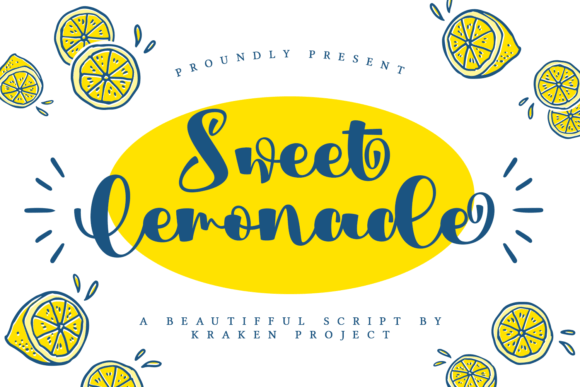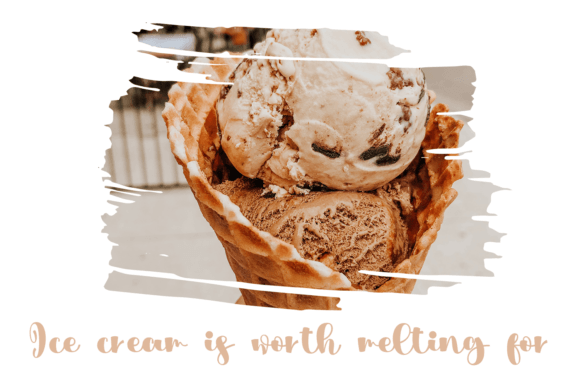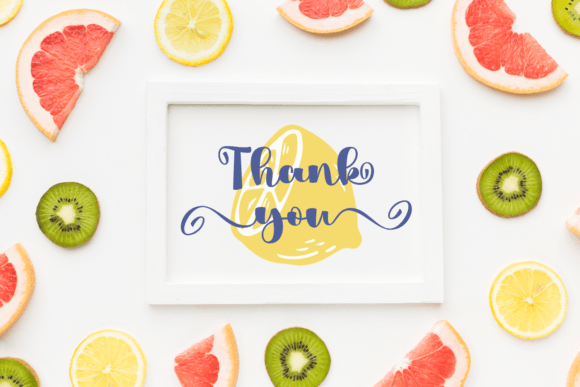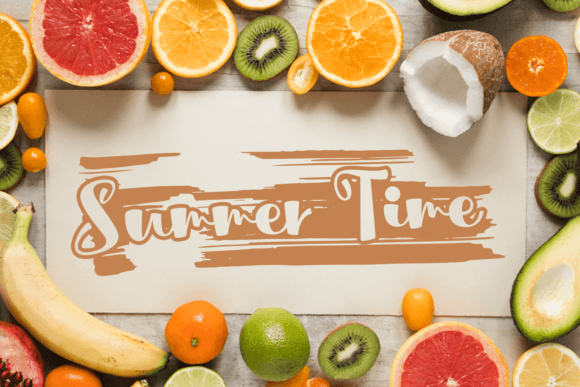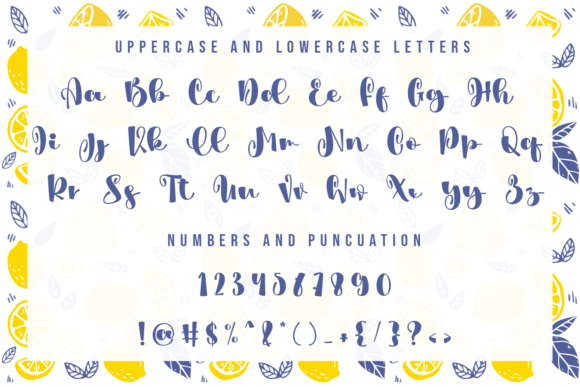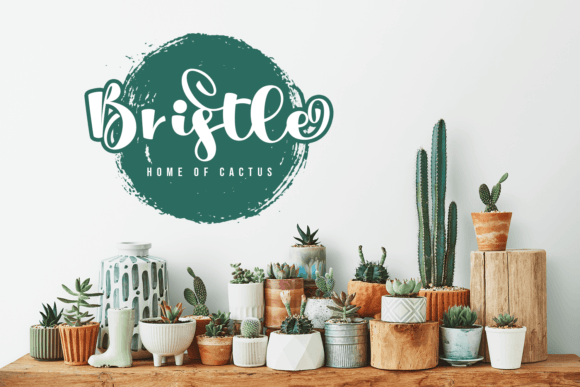
Sweet Lemonade Font
About Sweet Lemonade Font
Sweet Lemonade is a smooth and elegant handwritten font designed to add a touch of character to your creative projects. Whether you’re working on invitations, branding, quotes, or any design that requires a lovely and elegant touch, Sweet Lemonade brings a sense of sophistication and style.
The smooth and elegant qualities of Sweet Lemonade are evident in its carefully crafted letterforms. The font’s handwritten style adds a personal and charming touch, making it well-suited for a wide variety of designs.
The PUA encoding feature in Sweet Lemonade is a valuable addition, allowing easy access to a variety of glyphs and swashes. This feature enhances your creative freedom, enabling you to customize and experiment with different elements in your designs.
Whether used for invitations, branding, or any project where a smooth and elegant touch is desired, Sweet Lemonade stands out as a typeface that combines character with versatility. It adds a sense of refinement to your creative endeavors, making it suitable for a broad range of applications.
Incorporate Sweet Lemonade into your design toolkit and experience how it enhances the overall aesthetics of your projects. Let this smooth and elegant handwritten font be the key to creating stunning designs that capture attention and reflect a touch of character and style.